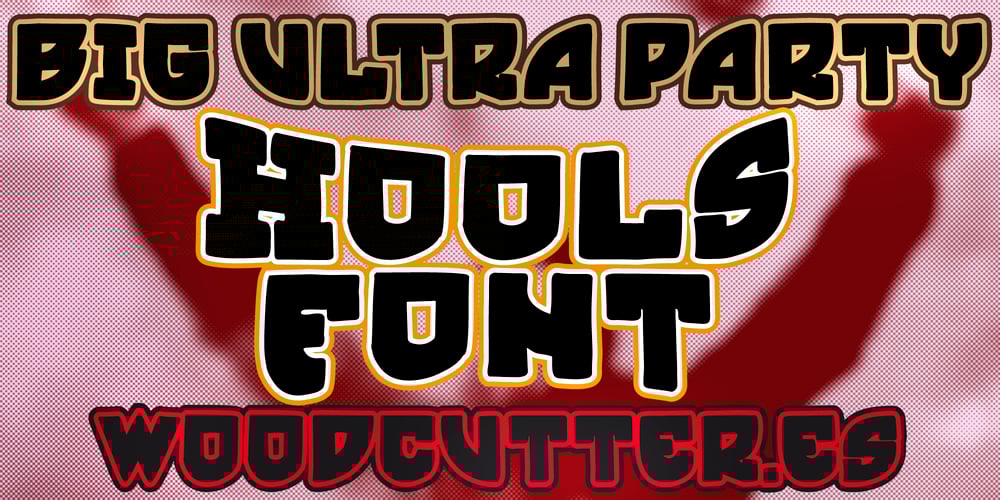
Big Ultra Party
Big Ultra Party font
Big Ultra Party Font Family was designed by Jordi Manero and published by Woodcutter. Big Ultra Party contains 1 styles and family package options. “Big Ultra Party” is a bold font inspired by the typefaces used by football fans. Presented in uppercase and with accents, this font stands out for its strength and presence, perfect for conveying passion and energy in any design. Its robust and powerful letters evoke the fervor and intensity of the stands, making “Big Ultra Party” the ideal choice for posters, banners, and any project aiming to capture the vibrant spirit of football supporters.